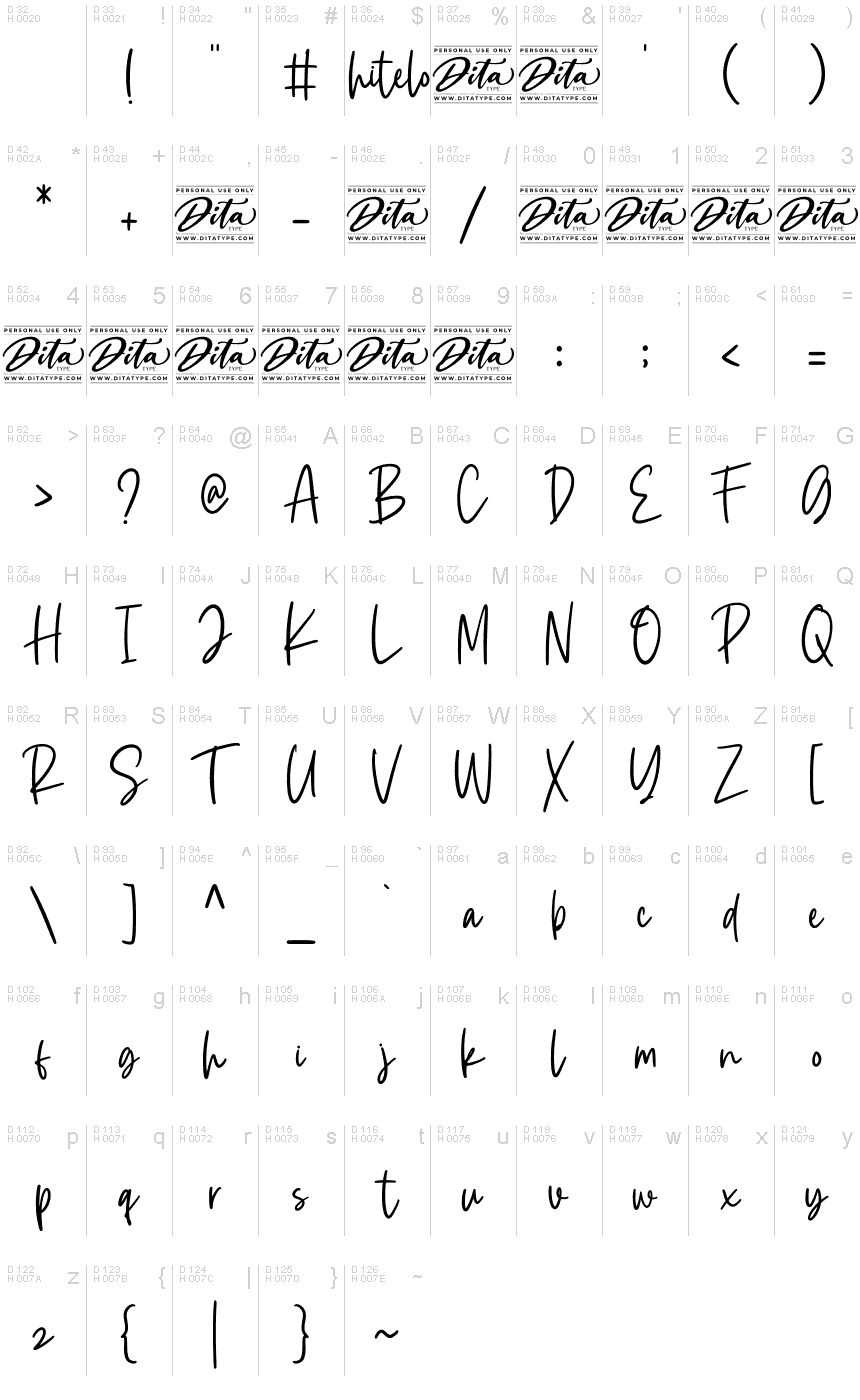
Whitelove Personal Use
Whitelove font is a casual handwritten typeface designed by Donis Miftahudin of Ditatype.
Whitelove is a modern handwritten font. With a classy and natural handwritten style, it brings a classy and chic typeface. Whitelove is best used for weddings, branding, logotype, and quotes.